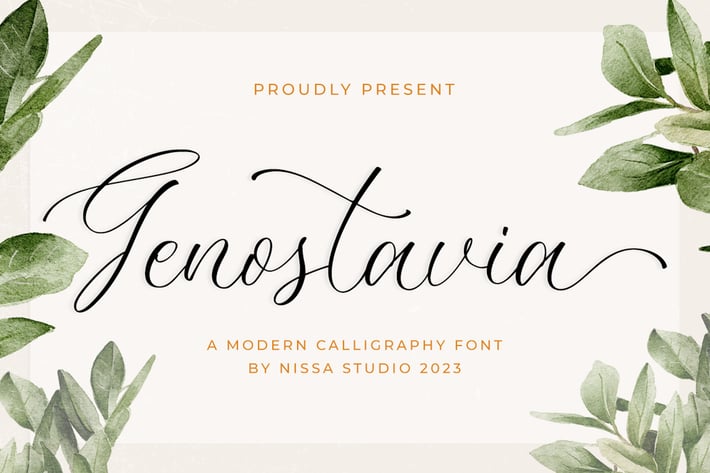
Genostavia - Wedding Font
Genostavia is a beautiful script font. It has a classy, elegant, and modern look which can be used for logos, branding, invitations, stationary, wedding designs, social media posts, and every other design which needs a handwritten touch.
Modern Handwritten Font
Beautiful Swash (Ending tail)
Beautiful Titling (Beginning tail)
Special Ligatures